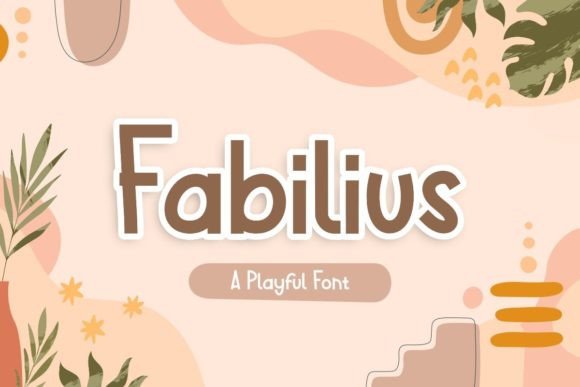
In a world of ordinary fonts, Fabilius emerges as an extraordinary masterpiece, captivating the hearts of designers and typography enthusiasts alike. Created by the ingenious minds at Font-Tastic, Fabilius is not just a font; it's an experience that breathes life into your creative endeavors.
Picture this: you're working on a project that demands a font that speaks volumes without uttering a single word. A font that dances across your screen, igniting the imagination and leaving an unforgettable impression. Fabilius is that font.
With its youthful vibes and playful demeanor, Fabilius adds a touch of whimsy to your designs, making them irresistible to the eyes. Its simple yet striking letterforms exude a charm that's both timeless and contemporary, appealing to audiences of all ages.
Fabilius is a versatile performer, seamlessly adapting to a wide range of design applications. Whether you're crafting elegant notebook covers, designing eye-catching mugs, or creating captivating posters, Fabilius rises to the occasion, delivering exceptional results every time.
But it's not just its versatility that makes Fabilius a must-have in your font collection. It's the emotions it evokes, the stories it tells, and the memories it creates. Fabilius has the power to transform ordinary designs into extraordinary expressions of art, leaving a lasting impact on your audience.